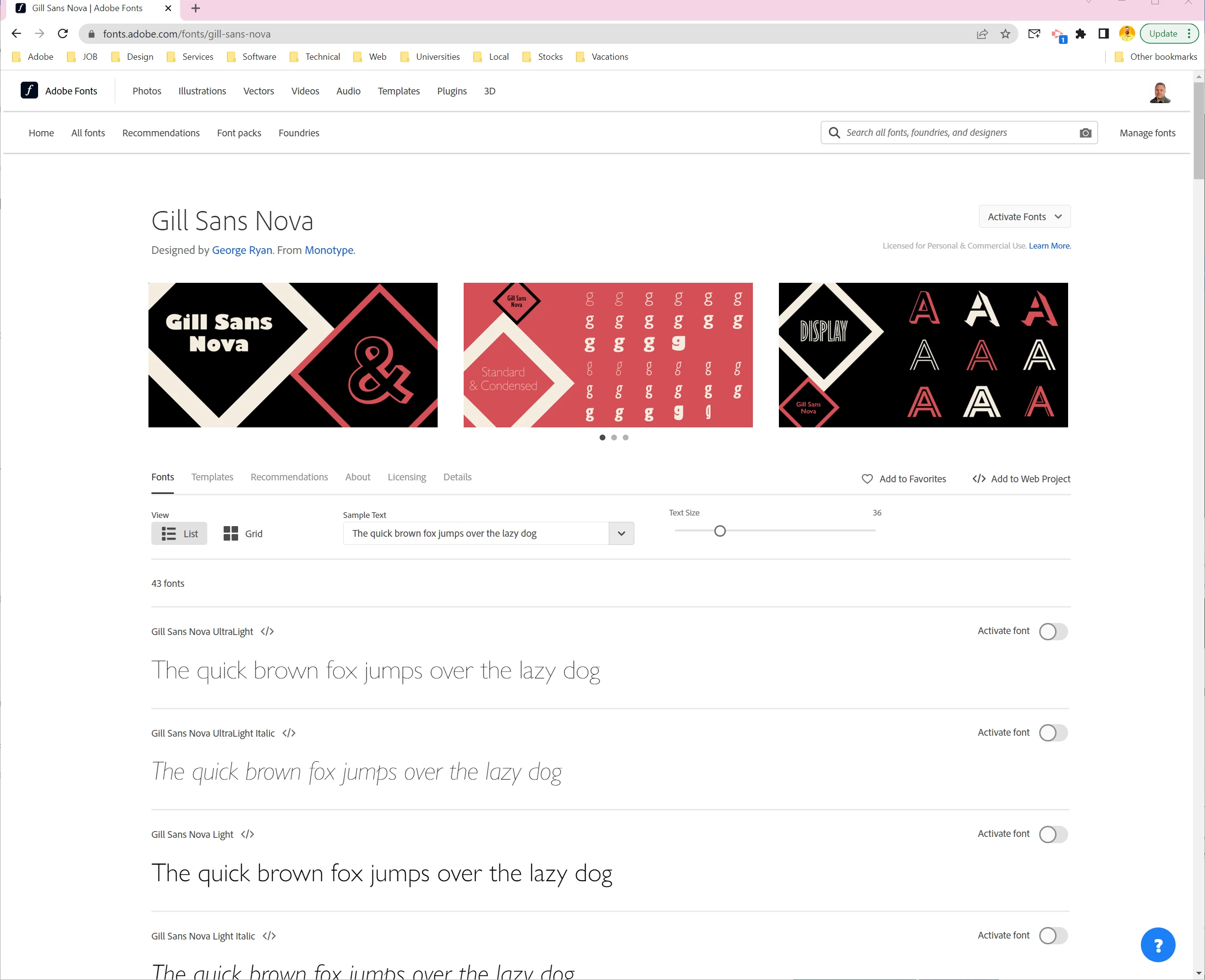
Gill Sans Nova has a substantially larger character set than the versions of Gill Sans that come bundled in Mac OSX, iOS and Windows. Most of the fonts have nearly 1100 glyphs each. The condensed weights have a little over 1000 glyphs each. The decorative styles have around 600 glyphs. The expanded character sets provide features such as native small capitals, ligatures, full fraction sets, etc. It's quite an upgrade over standard Gill Sans MT.